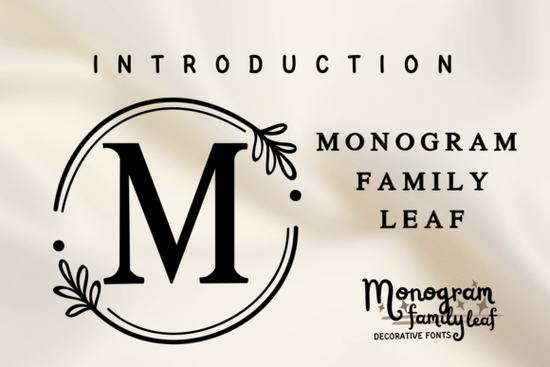
If you're looking for a decorative font that adds personality without losing elegance, the Monogram Family Leaf Font is worth a closer look. It’s especially well-suited for projects where warmth and craftsmanship matter think custom family signs, wedding invitations, or personalized gifts. What sets it apart is how it merges traditional serif letterforms with subtle leaf-inspired details, giving your text a handcrafted, organic feel without appearing overly ornate.
This font works beautifully in both digital and physical formats. Whether you’re designing printable wall art for Etsy, creating vinyl decals for home décor, or crafting monogrammed stationery, Monogram Family Leaf brings a soft, inviting touch. Its balanced contrast and gentle flourishes make it readable at larger sizes while still holding up nicely in smaller applications like gift tags or labels.
What kinds of projects work best with this font?
Creative folks across several niches find this style particularly useful:
- Home decor creators use it for wood signs, canvas prints, and framed family name displays.
- Wedding designers pair it with simpler sans-serif fonts for elegant place cards, menus, or welcome signs.
- Print-on-demand sellers feature it on mugs, tote bags, and throw pillows for a cozy, personalized aesthetic.
- Crafters and hobbyists love how it complements nature-themed or rustic design palettes.
How does it compare to other decorative monogram fonts?
Not all monogram fonts are created equal. Some lean modern and geometric, while others go full vintage or script. Monogram Family Leaf sits comfortably in the “classic with character” category. Unlike ultra-bold display fonts or tightly spaced scripts, it offers generous spacing and clear letterforms making it easier to read and scale.
Tips for using Monogram Family Leaf effectively
To get the most out of this font, keep these practical pointers in mind:
- Use it primarily for headlines or short phrases. Like most decorative fonts, it’s not ideal for body text or long paragraphs.
- Pair it with a clean, neutral companion font. A simple sans-serif (like Montserrat or Lato) helps balance its ornate qualities.
- Play with size and layout. The leaf details really shine when the font is used large perfect for wall art or signage.
- Consider color and texture. Earthy tones (sage green, terracotta, cream) enhance its natural vibe, especially on textured backgrounds like kraft paper or linen.
Before you commit, ask yourself: Does your project call for warmth, personalization, and a hint of nature? If yes, Monogram Family Leaf could be just the right fit. It’s not flashy but it’s memorable in the best way.